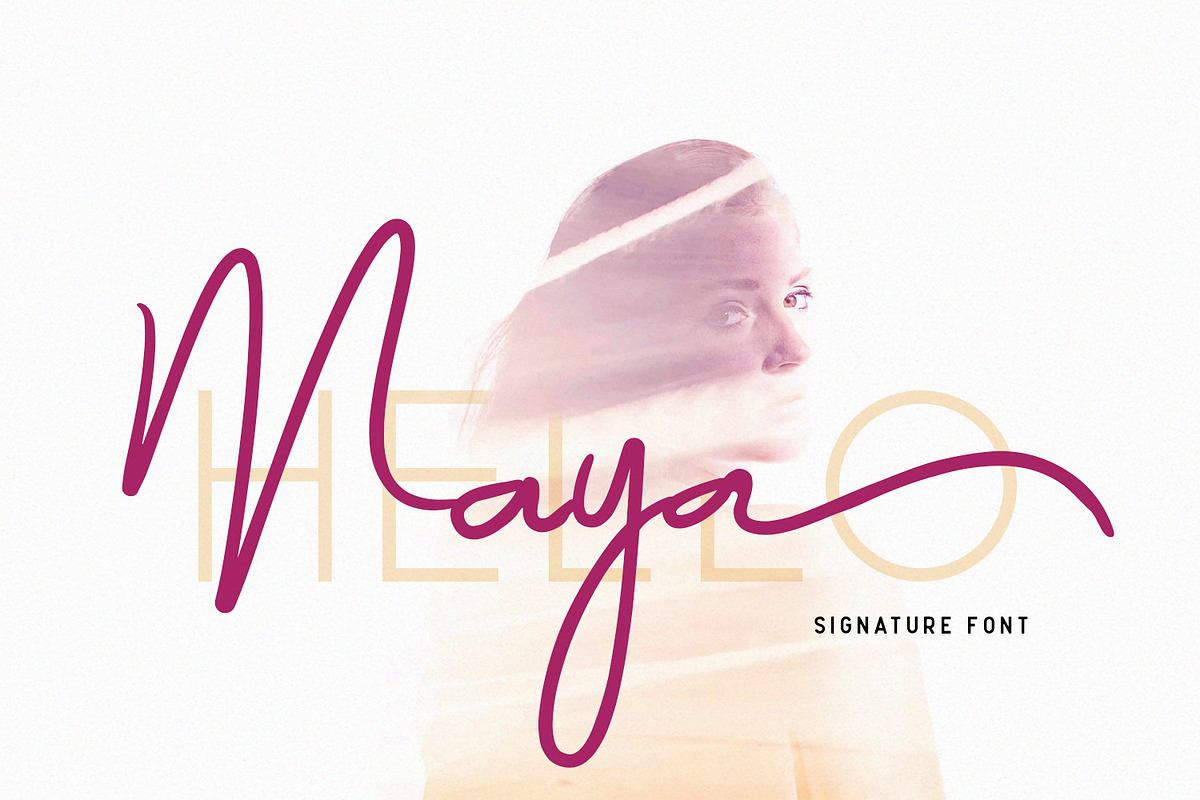
Elevate your design with personalized elegance using Maya Signature Font Free Download — a sleek, handwritten script font that radiates class and modern flair. Inspired by stylish signatures and luxury branding, Maya is perfect for personal logos, fashion labels, business cards, influencer content, and upscale packaging designs.
With its fluid strokes and natural flow, Maya Signature delivers the feeling of authenticity and refinement. The font includes a full set of uppercase and lowercase characters, punctuation, numerals, and multilingual support — giving designers complete freedom to create high-end, custom-looking visuals.